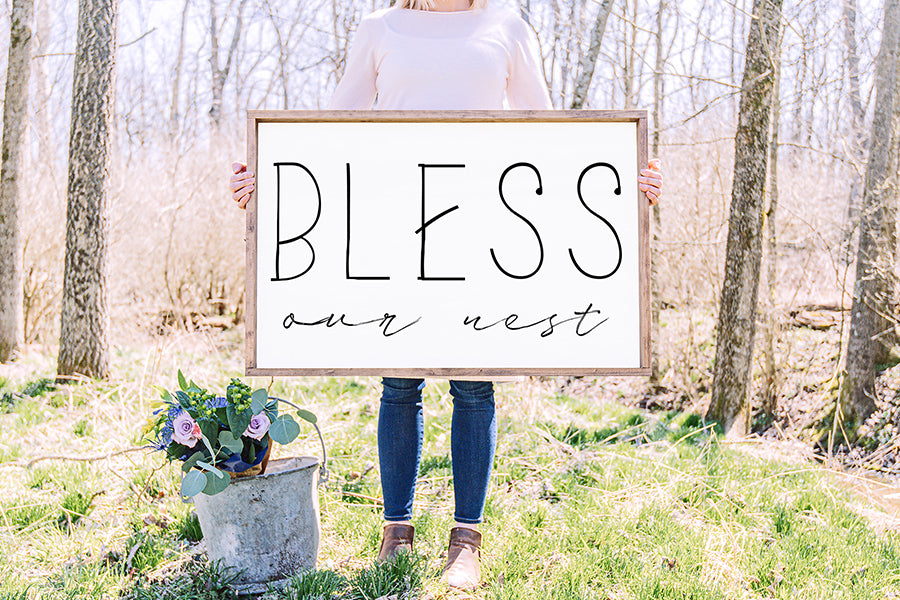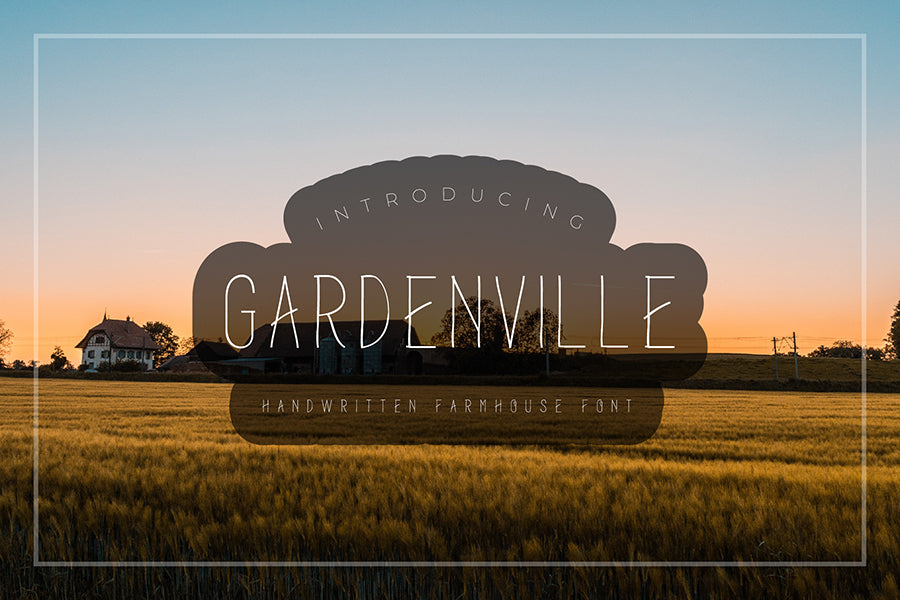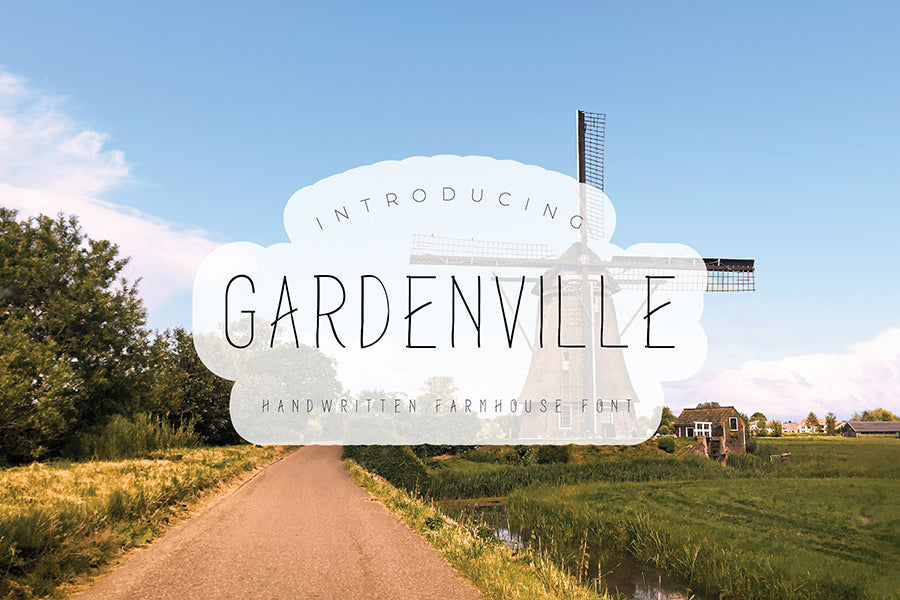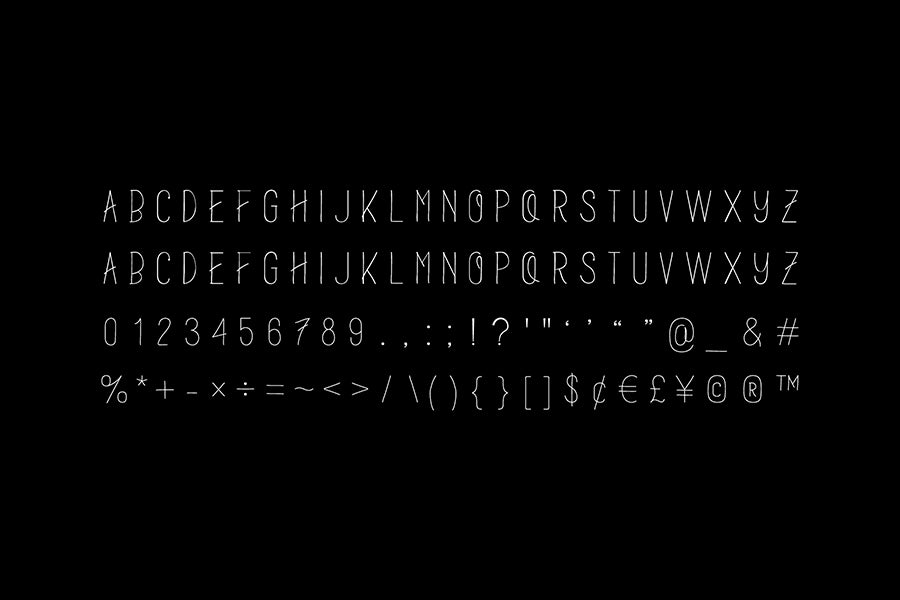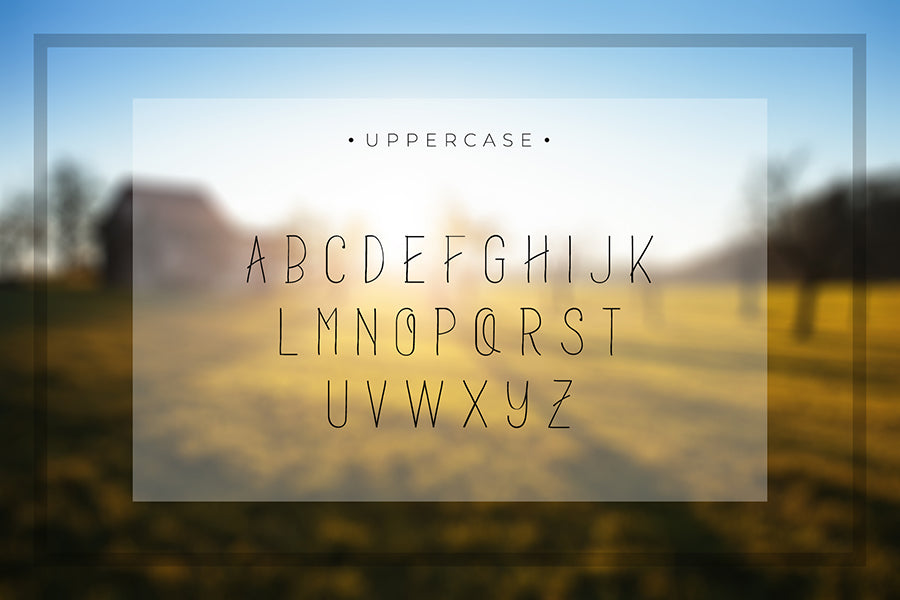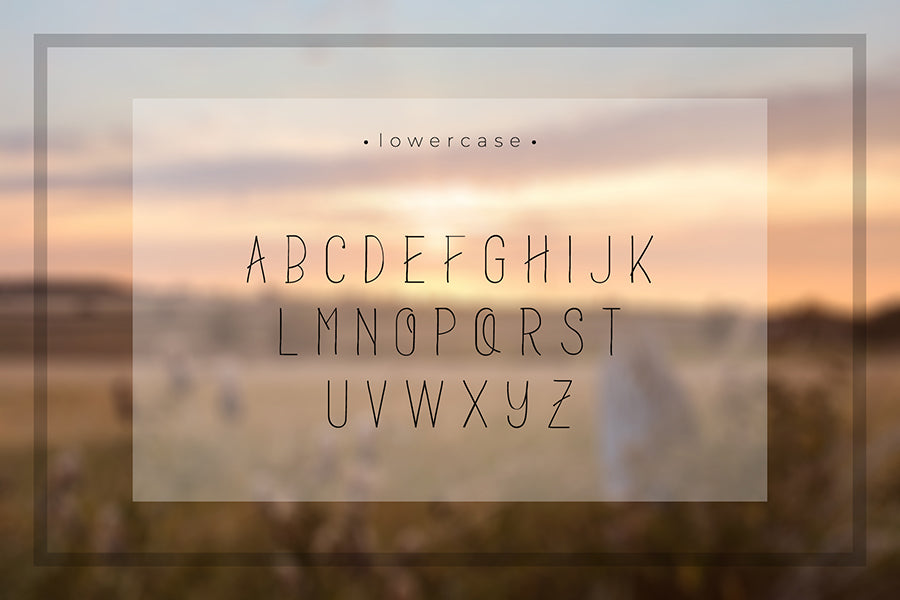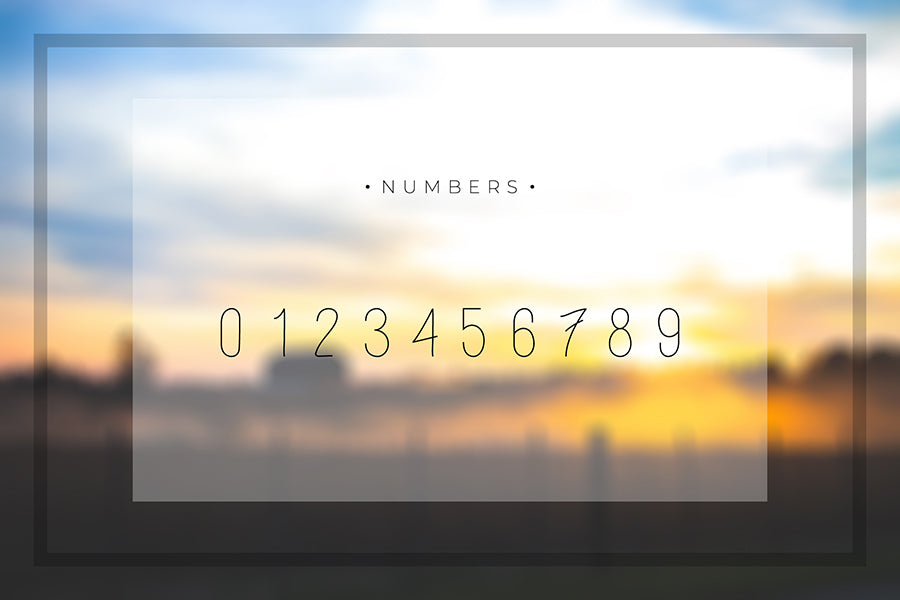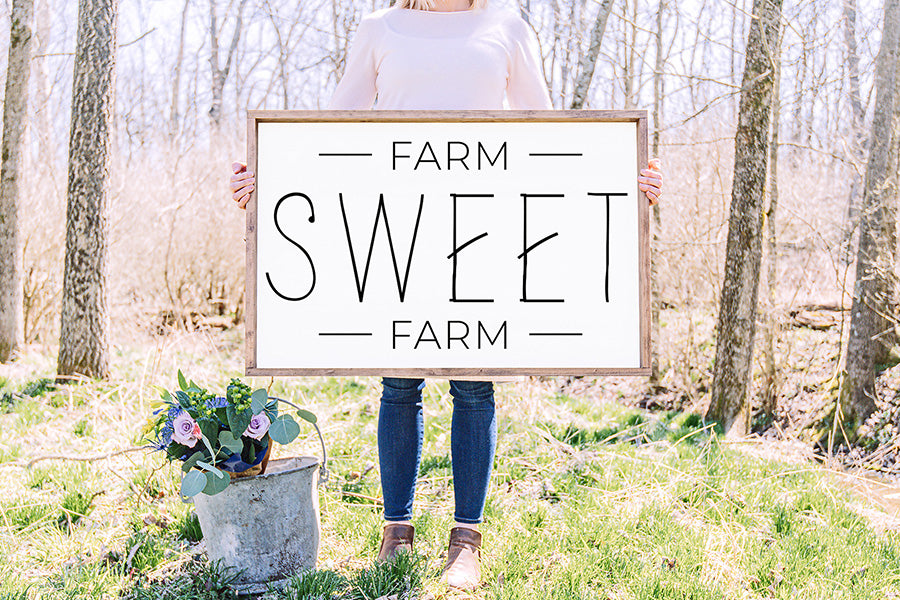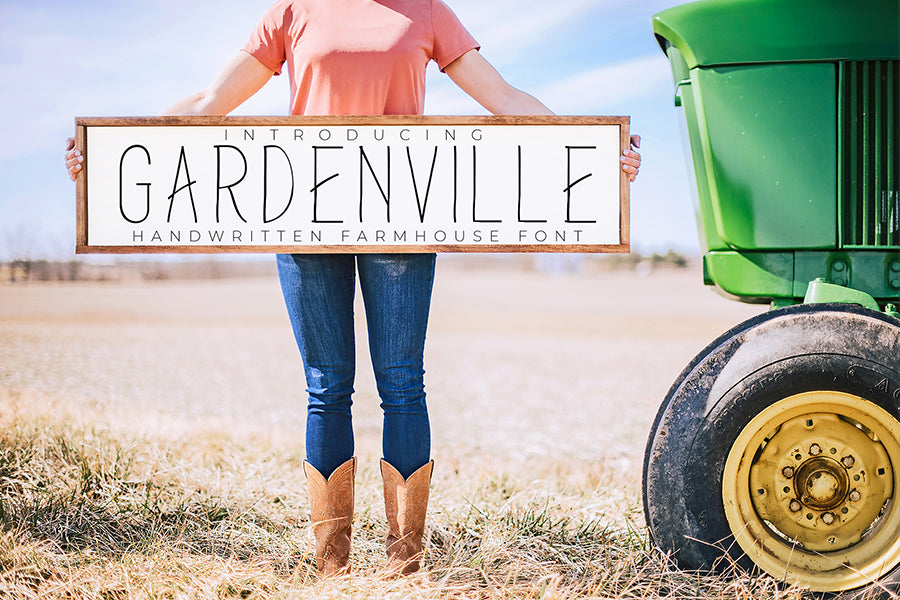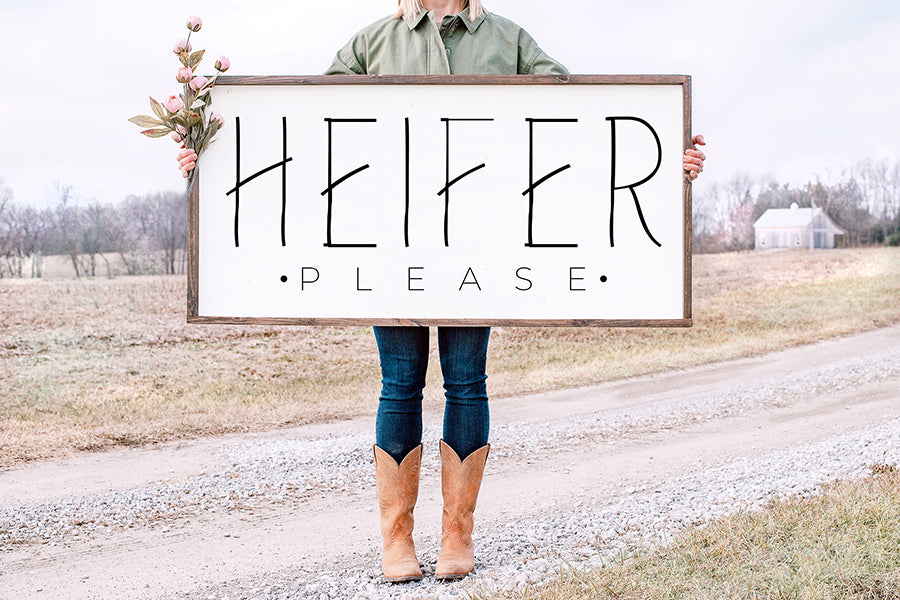
Garden Ville - Handwritten Farmhouse Font
Garden Ville is a clean and simple lettered handwritten font. It is perfect for kids designs, silly quotes, farmhouse signs, signs, farmhouse décor and much more.